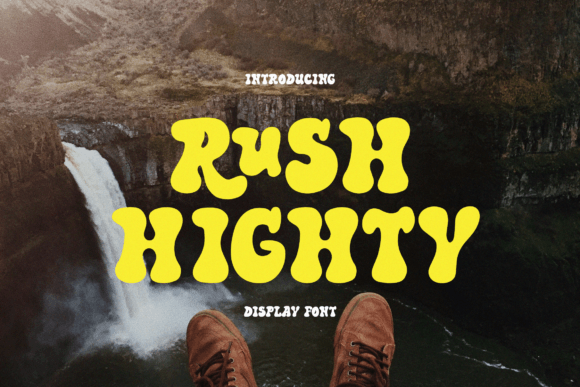
Rush Highty: The Bubbly Display Font for Energetic Branding
I opened my design software this morning with a blank artboard and a client brief that felt like a puzzle waiting to be solved. They wanted a visual identity for a new artisanal skincare line, something that screamed "natural" but also needed to stand out on crowded shelves without looking generic or stiff. After scrolling through hundreds of serif fonts and standard sans serifs, I stumbled upon Rush Highty, a display font with a bubbly style that immediately shifted the mood of the entire project. With its smooth curves, the letters exude a relaxed, fun, and cheerful vibe, making it the perfect candidate for a brand that wants to feel approachable yet professional.
Rush Highty for Boutique Packaging and Product Labels
When applying Rush Highty to product packaging, the immediate result is a shelf presence that demands attention while inviting interaction. In the world of display typography, few typefaces capture the essence of handcrafted goods as effectively as this one. I started by testing the font on mockups for small-batch soap bars and essential oil bottles, where the rounded edges of the characters mirrored the organic nature of the ingredients inside. The font's unique personality ensures that your fonts don't just convey information; they tell a story about the care put into the product. Unlike rigid geometric typefaces that can feel cold or industrial, Rush Highty wraps around your brand name in a way that suggests softness and trust, which is crucial for businesses selling beauty or wellness products.
- The bubbly letterforms create a friendly first impression on retail shelves.
- Smooth curves prevent the text from feeling harsh against delicate packaging materials.
- High contrast between the bold weight and background colors enhances visibility.
Rush Highty for Creative Studio Logos and Brand Identity
Rush Highty transforms the initial logo draft from a simple concept into a memorable character-driven mark that clients love instantly. When designing a brand identity for a creative studio or a local boutique, the goal is often to balance professionalism with a touch of whimsy, and this font delivers exactly that. I placed the typeface over various color palettes, ranging from earthy tones to vibrant pastels, and found that the Display style adapts seamlessly to both. It acts as a powerful anchor for the brand, ensuring that the logo remains legible even when scaled down for social media avatars or blown up for storefront signage. The energy inherent in the design prevents the brand from looking stagnant, keeping the visual identity fresh and engaging for years to come.
Rush Highty for Social Media Graphics and Digital Marketing
In the fast-paced environment of digital marketing, Rush Highty serves as an excellent tool for capturing user attention within split seconds on Instagram feeds or Facebook ads. As a creative font, it breaks the monotony of standard body copy and headlines, injecting a burst of personality into promotional content. I tested the font on a series of carousel posts and story templates, observing how the relaxed curves guided the eye naturally toward the call-to-action buttons. Its cheerful vibe aligns perfectly with lifestyle brands, food blogs, and event promotions where the tone needs to be upbeat and inclusive. By using this typeface, designers can elevate their social media graphics from generic templates to bespoke assets that reflect a distinct brand voice.
Rush Highty for Event Posters and Promotional Flyers
For events that require a sense of fun and community, Rush Highty offers a dynamic solution that turns standard flyers into conversation starters. Whether you are designing a poster for a summer festival, a workshop at a community center, or a launch party for a new product, the font's energetic character sets the right stage. The smooth curves soften the message, making large-scale typography feel less aggressive and more inviting to passersby. I found that pairing the bold display letters with ample white space allowed the fonts to breathe, ensuring that the event details remained readable even from a distance. This versatility makes it a go-to choice for print campaigns where visual impact is paramount.
Rush Highty Paired with Serif Fonts for Editorial Design
While Rush Highty shines as a headline or display element, its true potential is unlocked when paired with a classic serif font for supporting text. I recently worked on an editorial layout for a lifestyle magazine feature, combining the bubbly display style with a traditional serif typeface to create a harmonious hierarchy. The contrast between the playful display letters and the structured serif lines added depth to the page, preventing the design from feeling too childish or overly serious. This combination allows designers to maintain readability for long-form content while using Display typography to break up sections and highlight key quotes. The result is a balanced composition that feels both modern and timeless.
Rush Highty for Website Headers and Hero Sections
Making a strong first impression online requires a hero section that communicates your brand's personality immediately, and Rush Highty excels in this high-visibility area. When used as a website header, the font's full energy draws visitors in, encouraging them to explore further rather than bouncing off the page. I tested the typeface on a responsive web design framework, noting how the smooth curves maintained their integrity across different screen sizes and resolutions. The font's cheerful vibe helps humanize digital spaces, making tech-heavy platforms feel more accessible and warm. For any business looking to establish a friendly online presence, integrating this creative font into the navigation or main banner is a strategic move that pays off in user engagement.
Testing Rush Highty Before Committing to Your Brand System
Before finalizing any design asset, it is essential to test Rush Highty in real-world scenarios to ensure it meets your specific project needs. I recommend creating a comprehensive brand board that includes the font applied to business cards, letterheads, and digital banners to see how it behaves across different mediums. Check the included styles, alternates, and ligatures to see if they offer enough variety for your branding requirements. While the font is designed as a standalone display type, verifying its compatibility with other typefaces will help you build a cohesive system. Remember that a successful brand identity relies on consistency, so take the time to evaluate how the relaxed, fun, and cheerful vibe translates to your target audience before launching your final campaign.